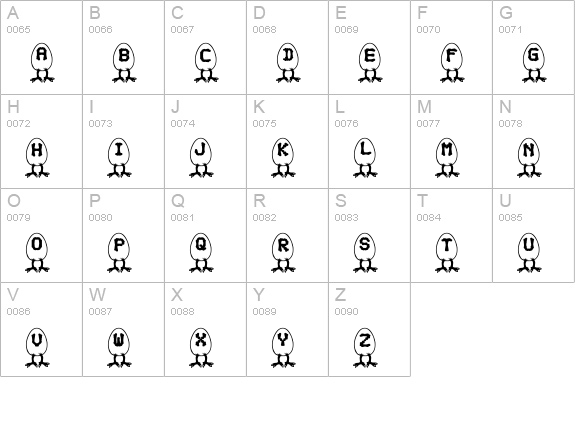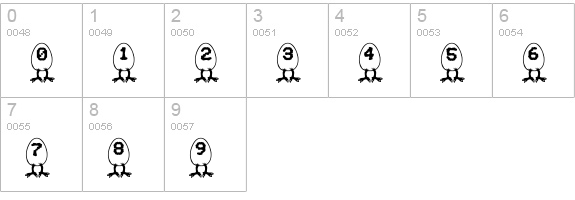
RMEgg Font Details
Introducing RMEgg font, a delightful and versatile typeface that is sure to add a touch of whimsy to your design projects. With its rounded edges and playful charm, RMEgg is perfect for creating eye-catching headlines, branding materials, invitations, and more. This unique font is available for free download at FontsMarket.com, making it easily accessible to designers and creators looking to enhance their work with a fun and quirky font. Whether you're working on a personal project or a client's design, RMEgg is sure to bring a fresh and creative element to your typography. With its wide range of characters and symbols, RMEgg offers endless possibilities for customization and creativity. Give your designs a fun and distinctive flair with RMEgg font, now available for free at FontsMarket.com.